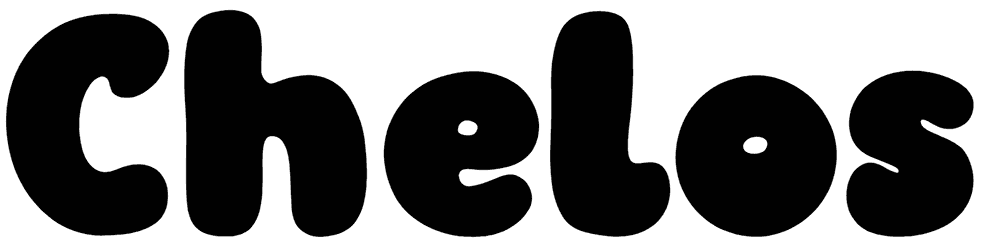
Chelos Font
If you want to strongly impress the audience and engage them at first glance through your graphic content, the quality of your work must be good enough that nobody can ignore it, and in this way, a cartoon font such as Chelos would help you to achieve your goals.
Considering its magical ability in sharing a sense of joy, childishness, drama, or momentum, the lack of lowercase letters and numbers won’t be a serious problem.